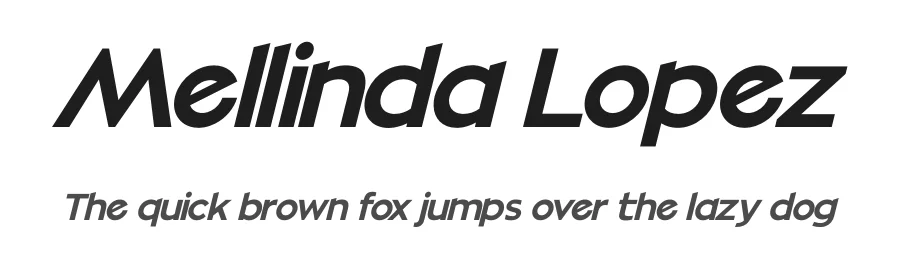
About Gerhaus Font
Gerhaus Specifications
| Font Family | Gerhaus |
| Full Name | Gerhaus Italic |
| Glyph Count | 888 glyphs |
| Designer | GGBotNet |
Gerhaus Font is a versatile sans-serif font that works for both headings and body text. Pair it with a contrasting serif or slab serif font to add visual interest and a clear distinction between titles and body copy.
Gerhaus Font
by GGBotNet